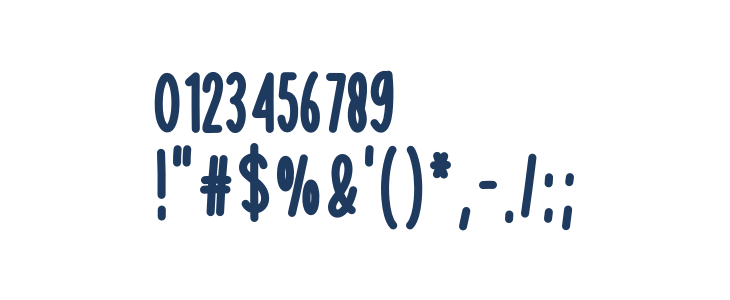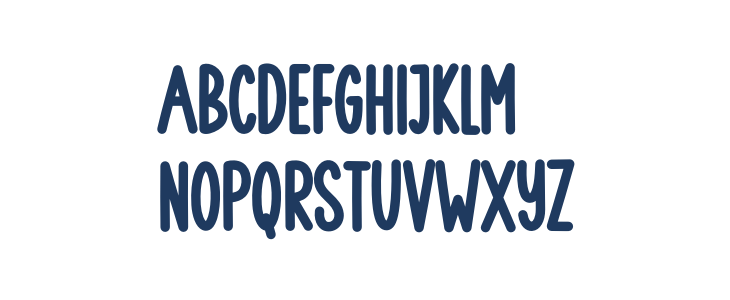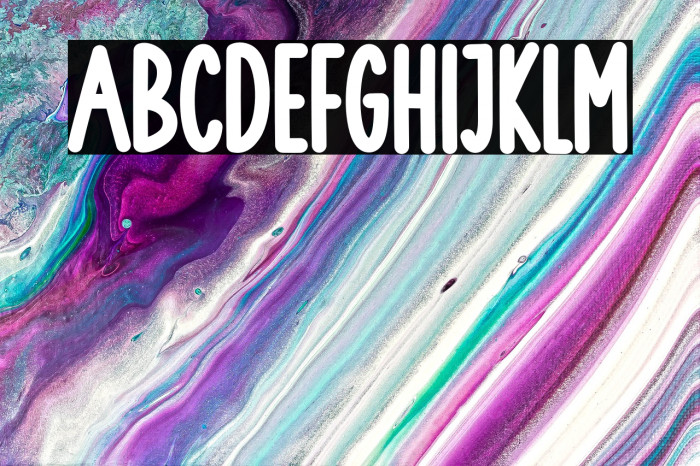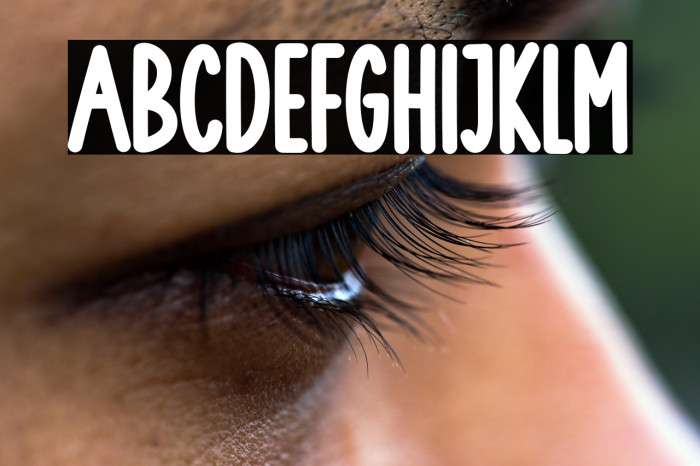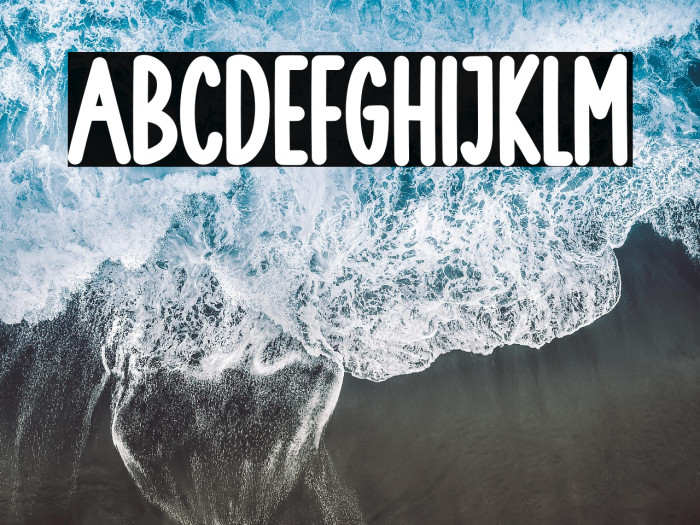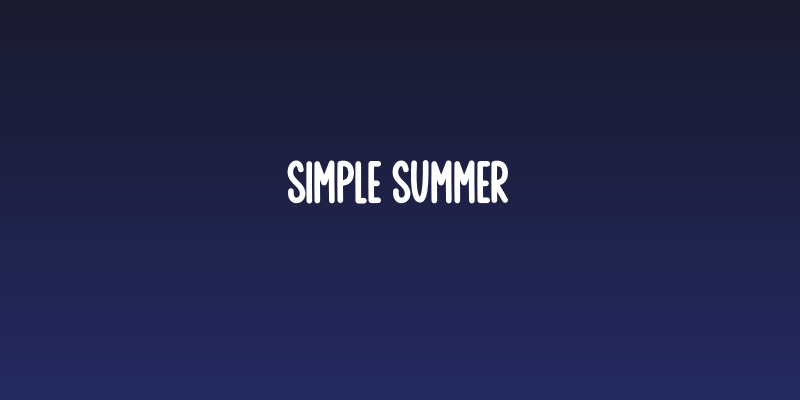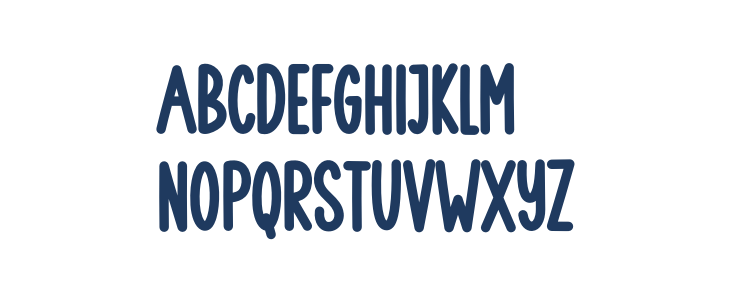
Simple Summer Font
Simple Summer Description
A playful, rounded sans-serif font with uniform stroke width, tall letterforms, and a hand-drawn, casual appearance. The characters are slightly condensed and have a friendly, informal vibe.
| Width | Condensed |
| Overall Style | Casual, Playful, Handwritten |
| Use Case | Headlines, Posters, Informal Branding, Children's Materials |
| Proposed Projects | Children's books, greeting cards, posters, summer event flyers, branding for casual products. |